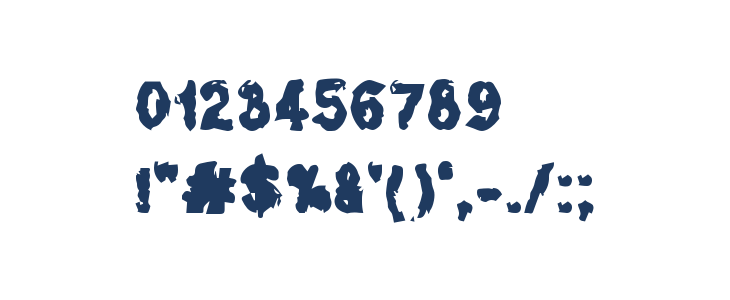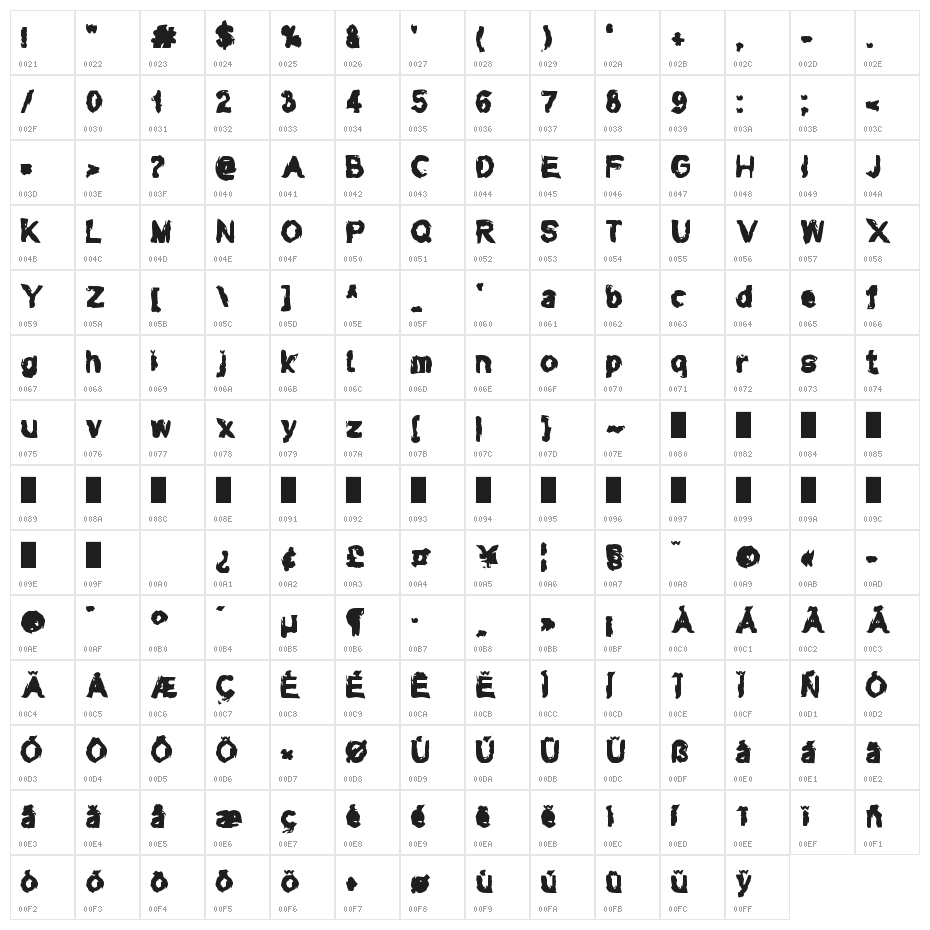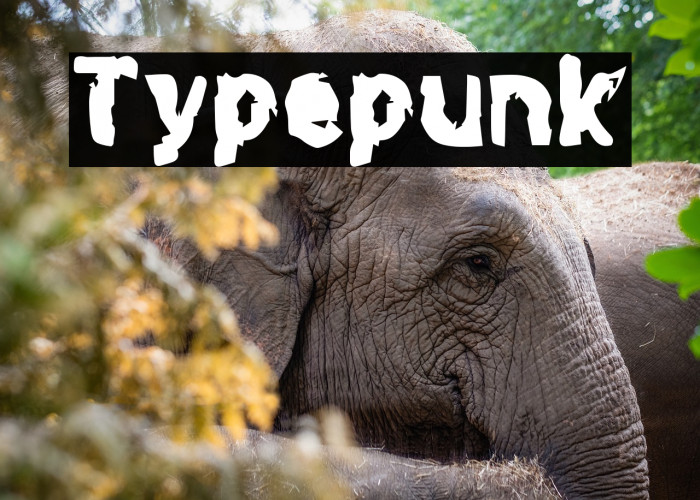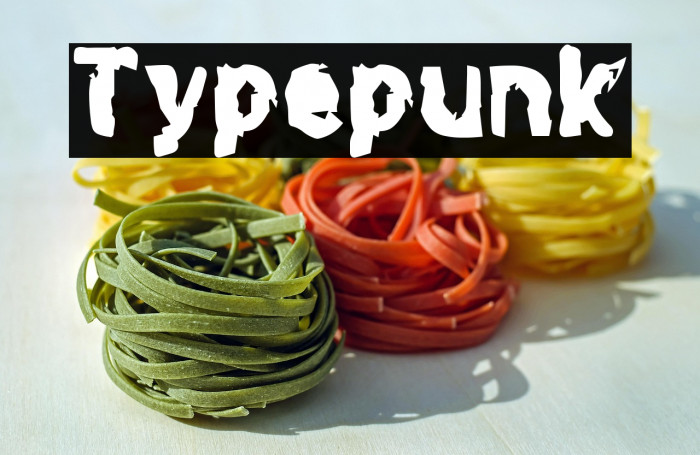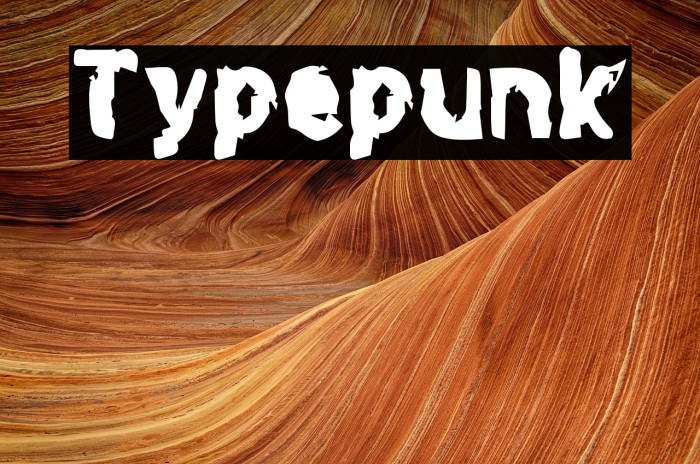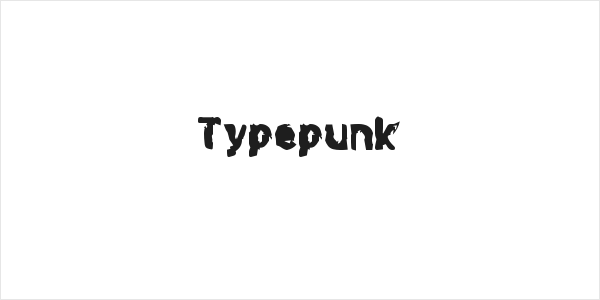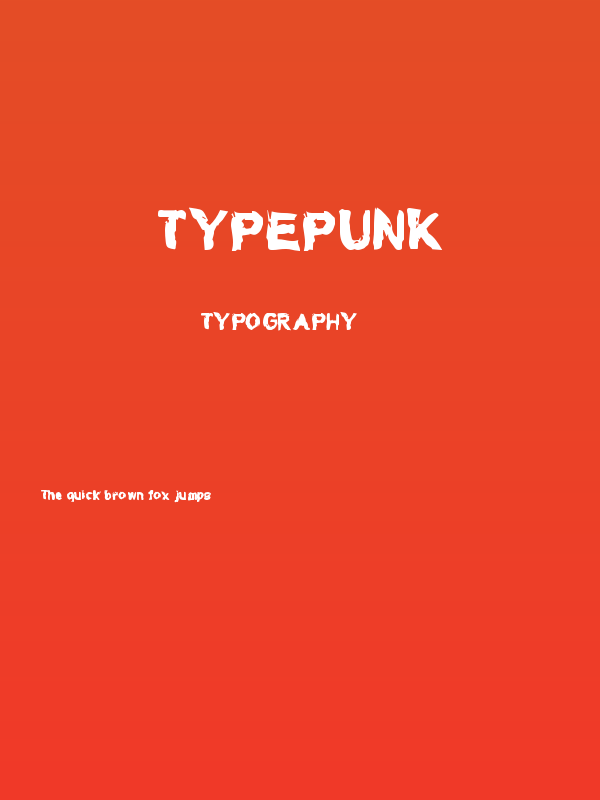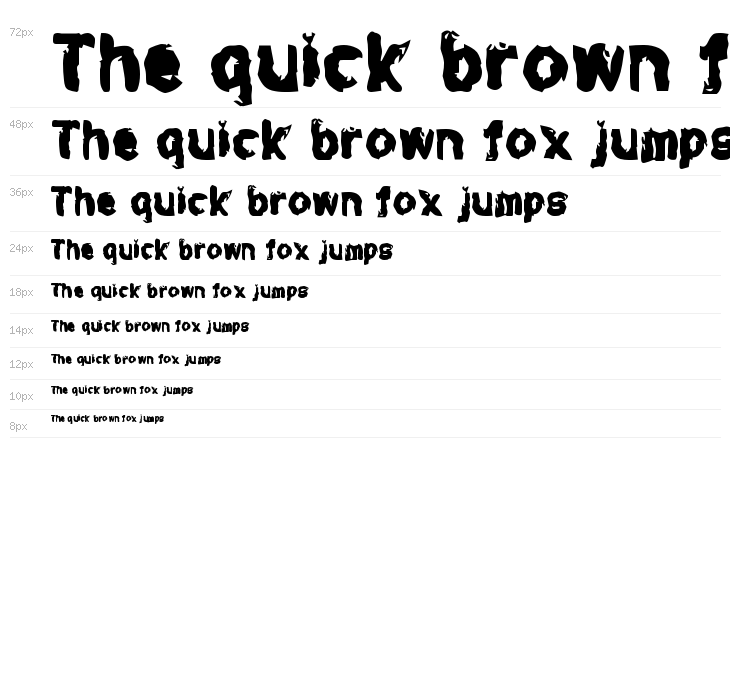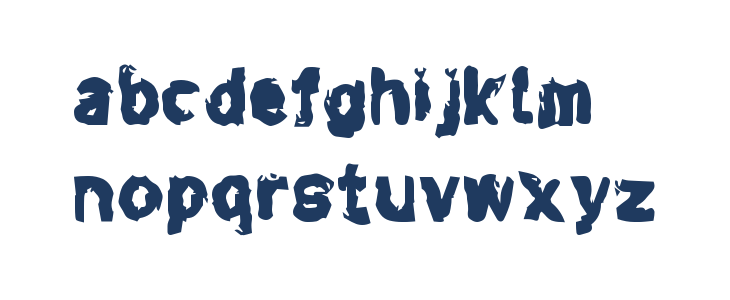
Typepunk Font
Typepunk Description
This font features a bold and rugged style with a distressed, grunge-like appearance. The characters are uneven and have a rough, hand-painted texture, giving them a dynamic and edgy feel. The uppercase and lowercase letters maintain a consistent style, with jagged edges and irregular shapes that add to the font's unique character. Numbers and special characters follow the same aesthetic, making the font suitable for projects that require a bold, impactful look. Its distinctive appearance makes it ideal for creative and unconventional designs.
| Proposed Projects | Ideal for album covers, posters, street art, and edgy branding projects. |